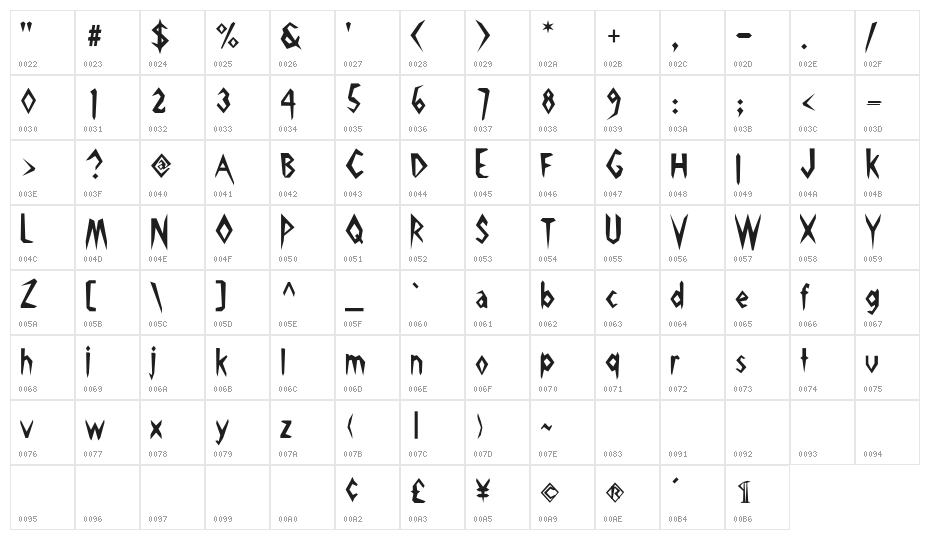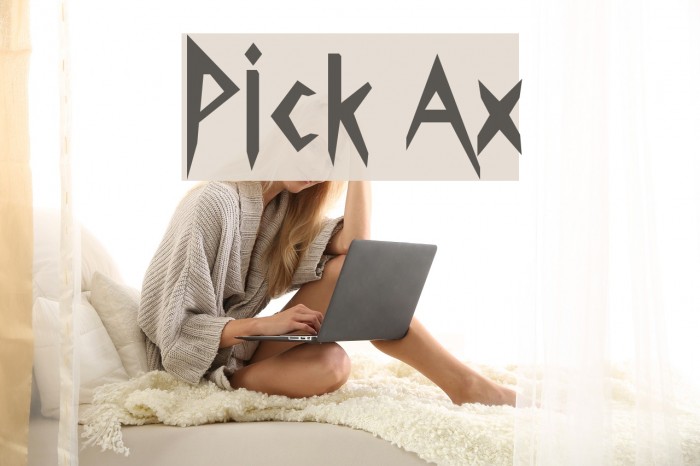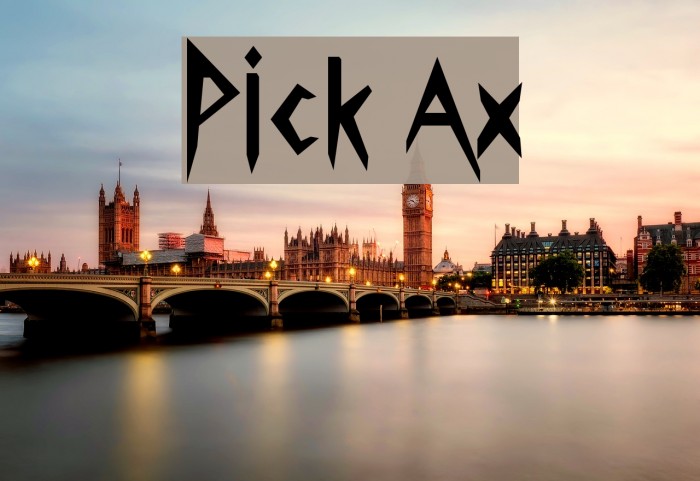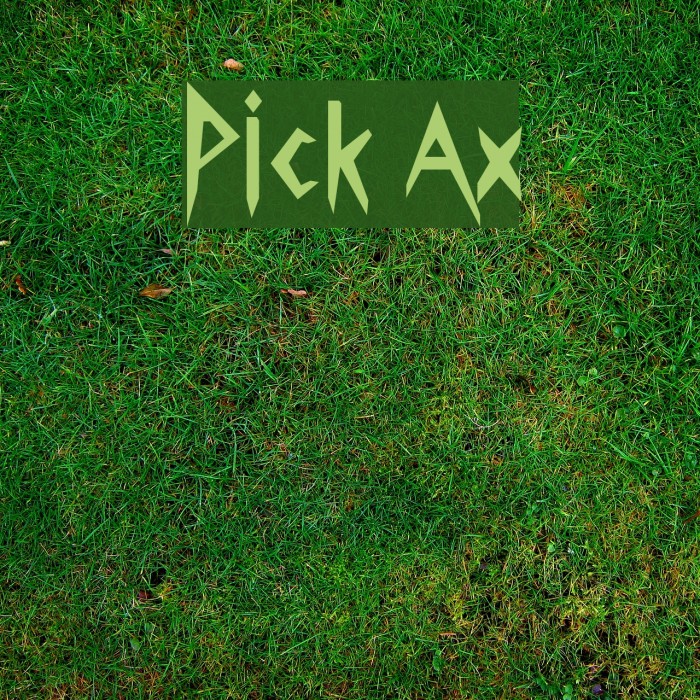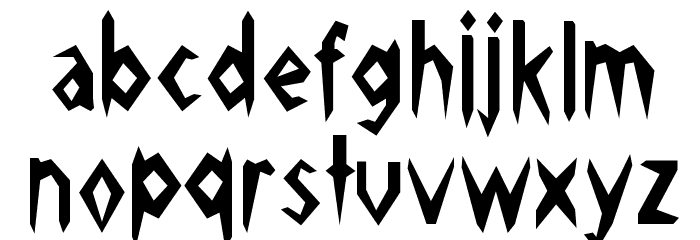
Pick Ax Font
Pick Ax Description
This font exhibits a bold and edgy design with sharp, angular lines that create a sense of movement and energy. The uppercase and lowercase letters maintain a consistent style, characterized by pointed edges and a slightly irregular form that adds a dynamic and rebellious feel. The numerals and special characters follow the same aesthetic, ensuring a cohesive look across all elements. This font's unique style makes it stand out, ideal for projects that require a strong visual impact.
| Overall Style | Modern, Edgy |
| Proposed Projects | Perfect for music album covers, video game titles, posters, and branding that requires a bold statement. |